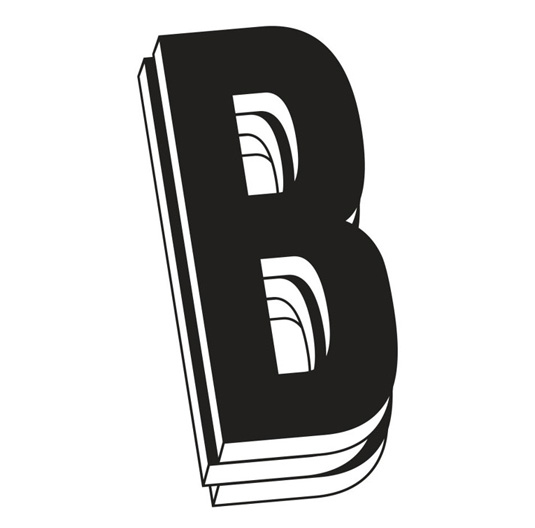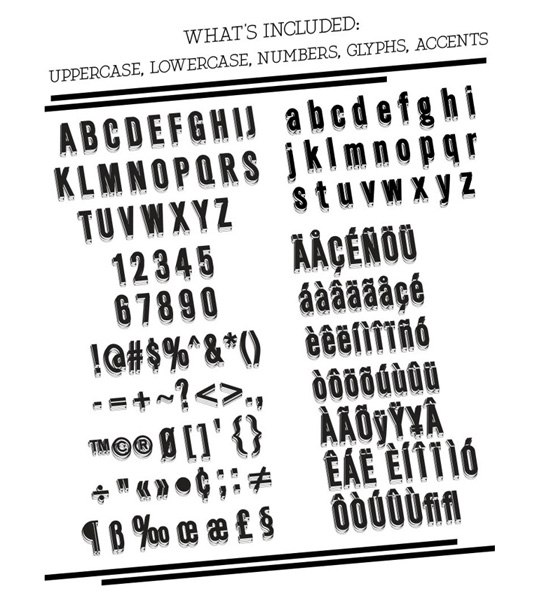
Font of the day: Wafer
Every day we showcase the best fonts on the web. Today it's Wafer by Paul Reis, which is totally free to download.
Wafer by Paul Reis
Today's typeface of choice is Wafer, by graphic designer Paul Reis. A 3D design, Wafer is a unique and creative headline font, providing dimension and perspective to your type.